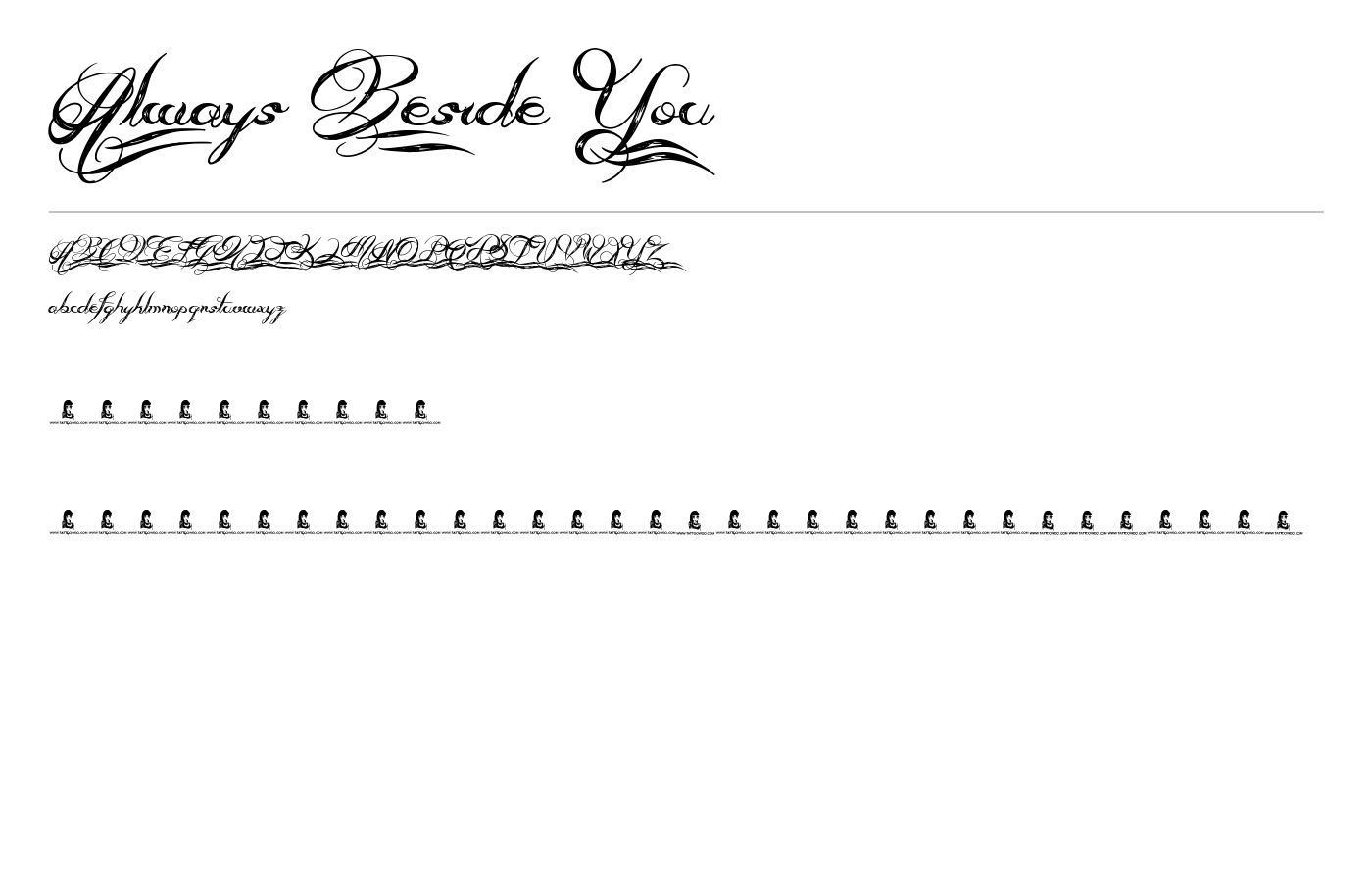
Always Beside You is an elegant script font featuring delicate, flowing strokes with high contrast and intricate flourishes that give it a romantic and luxurious feel. Its ornate letterforms and graceful connections make it perfect for wedding invitations, luxury branding, and sophisticated editorial designs where a touch of refinement is desired. This font excels in creating a timeless and intimate atmosphere, ideal for headline use or decorative accents.
Always Beside You Font
About Always Beside You Font